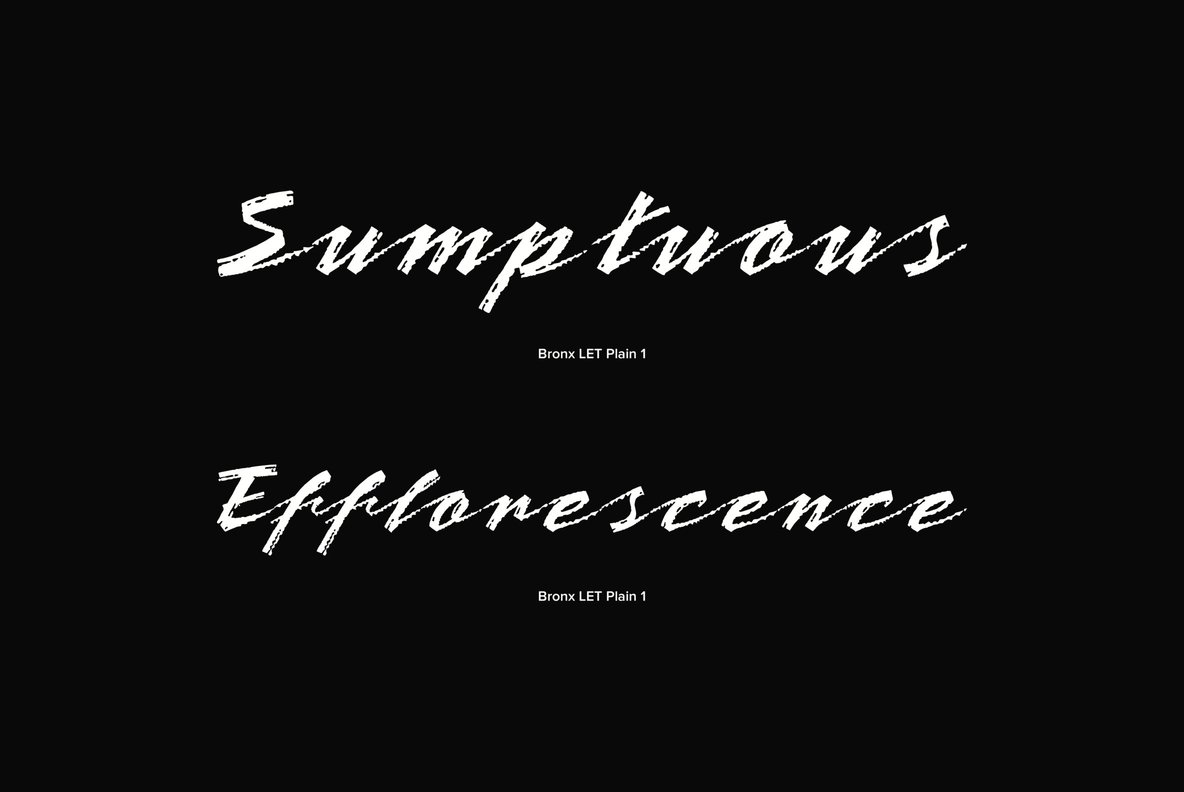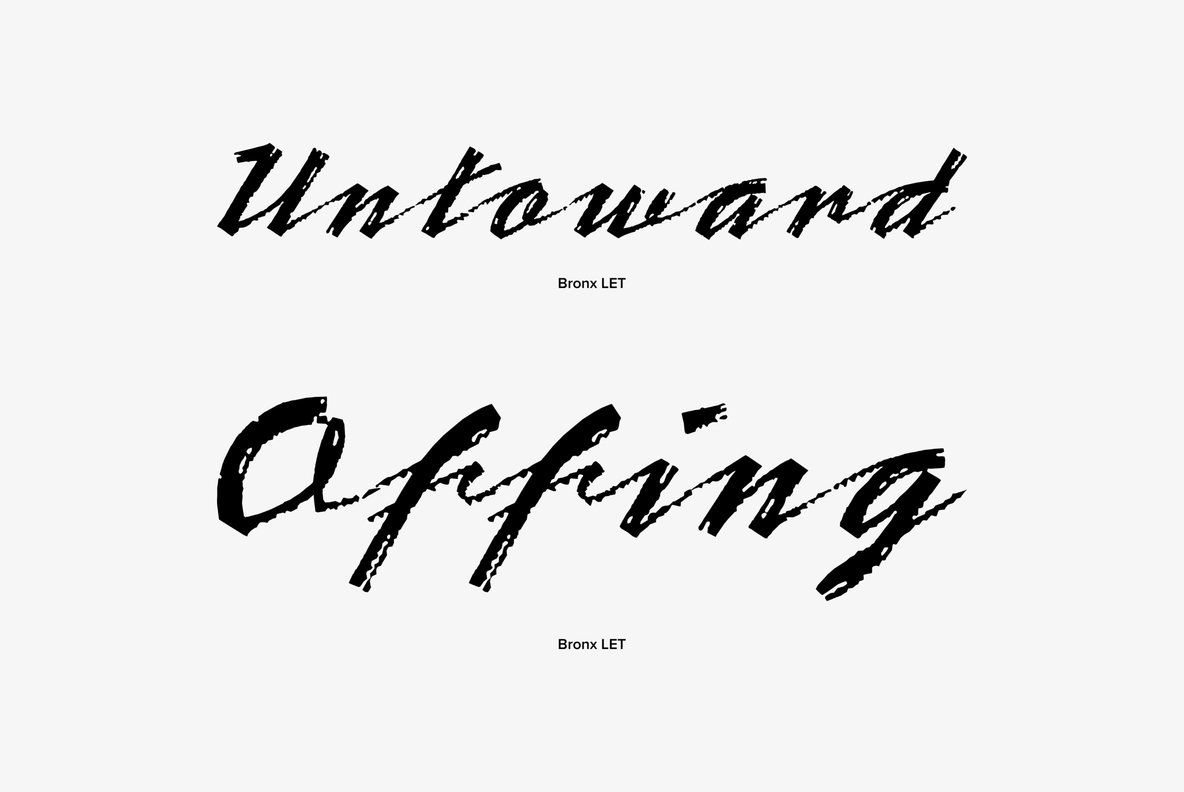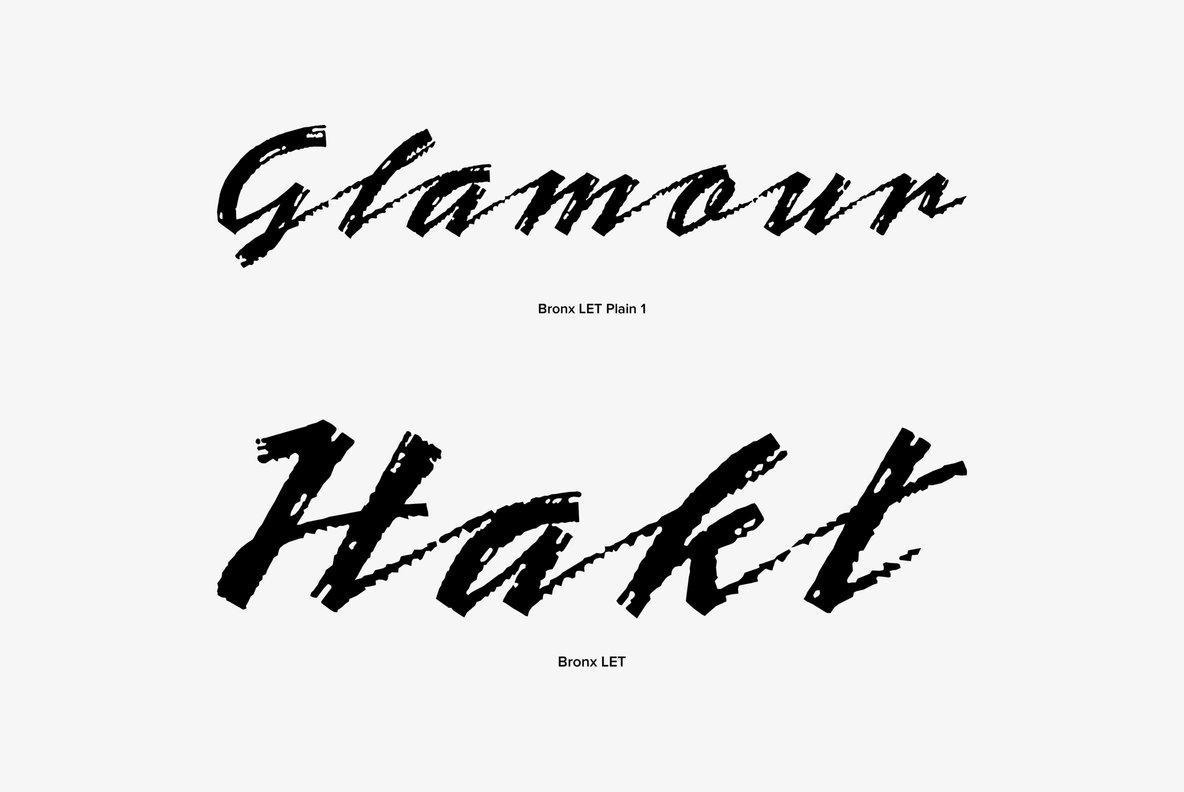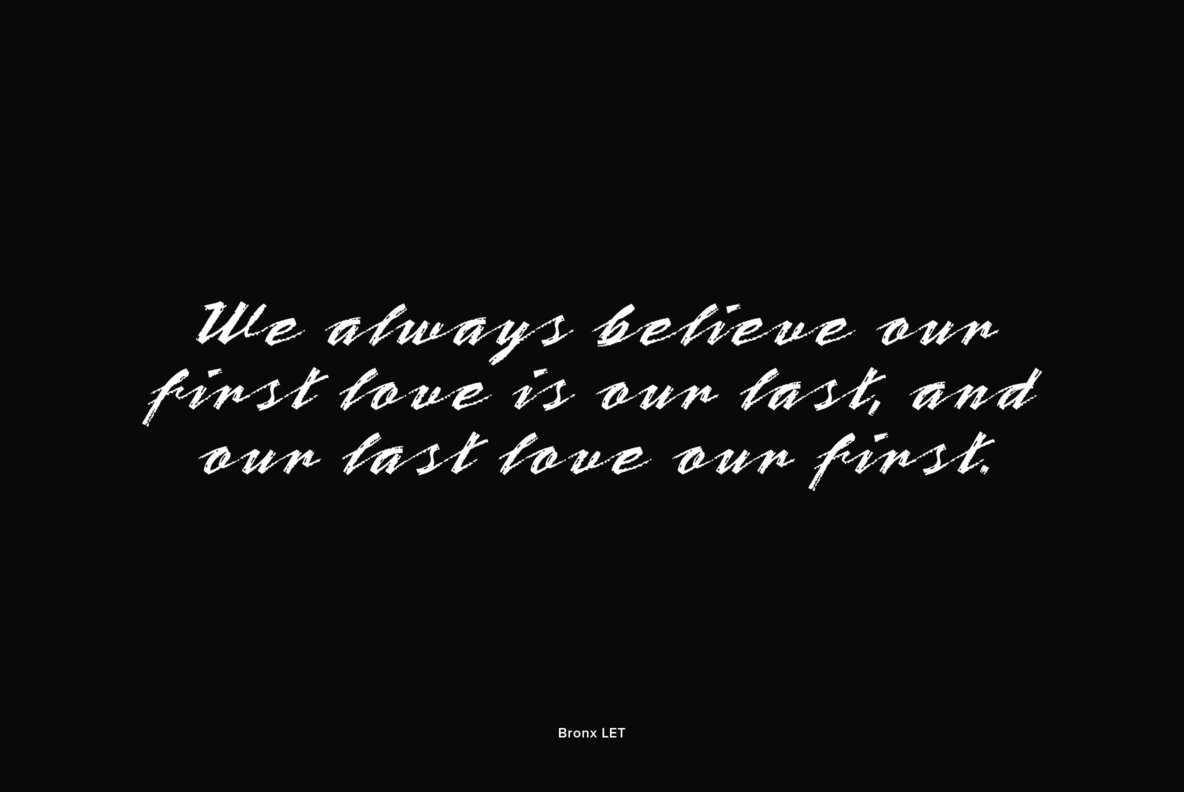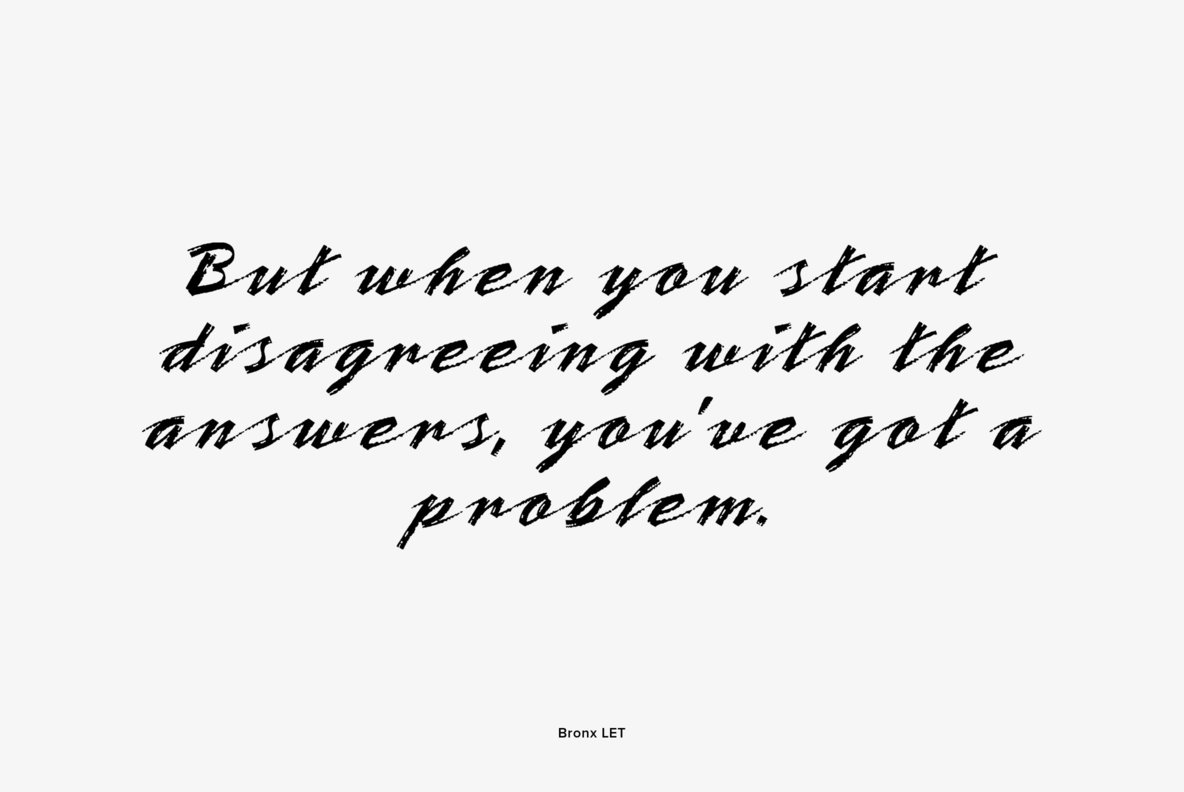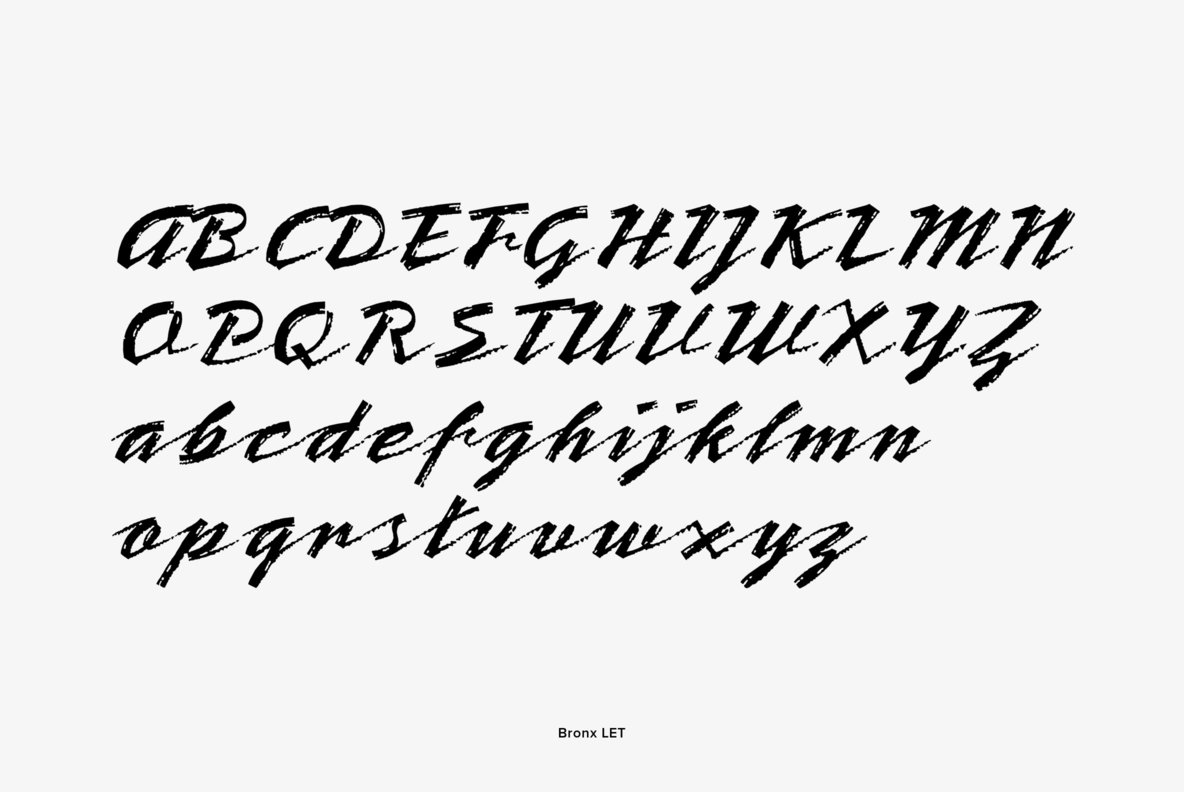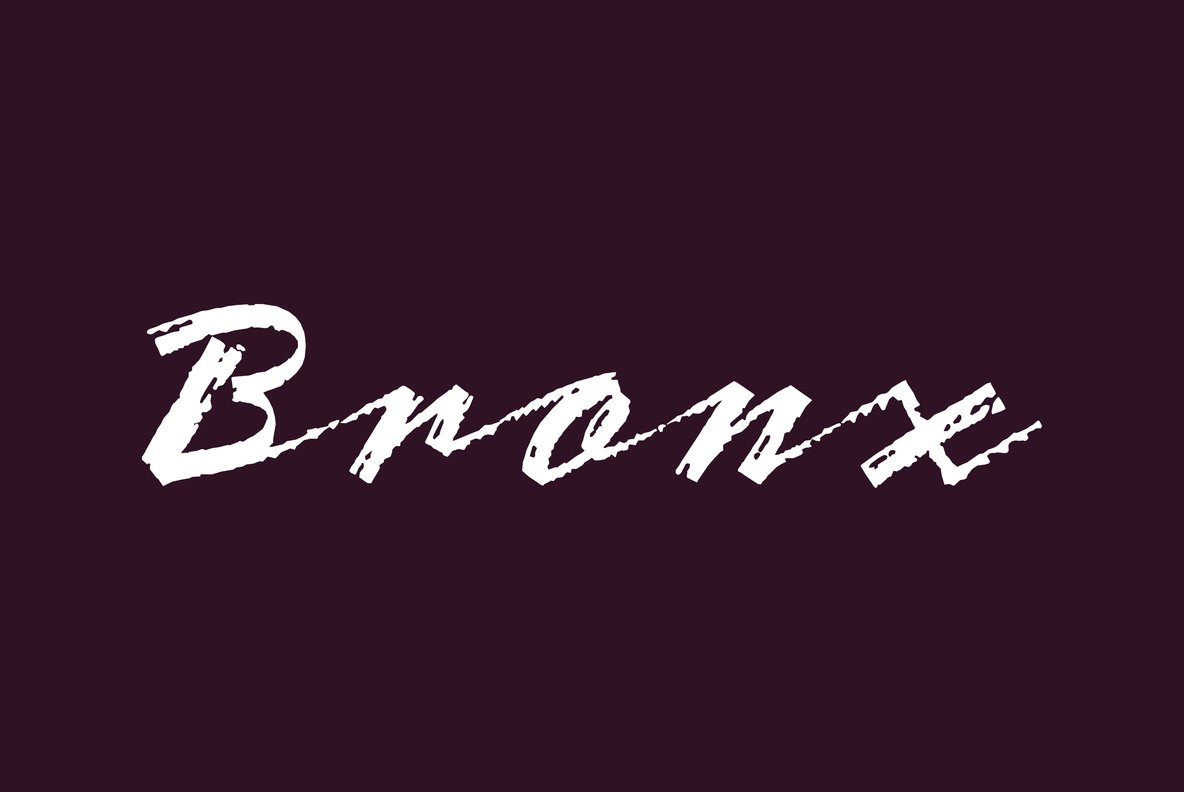
Bronx Font
A contemporary, highly stylized script style that captures the effect of a quickly rendered brush letter. The capitals are intended only for initialling purposes, but may be joined with the lower case letters, which can also be linked together. Bronx has great potential for use in work associated with the fashion industry. Created by well-known British designer David Quay.